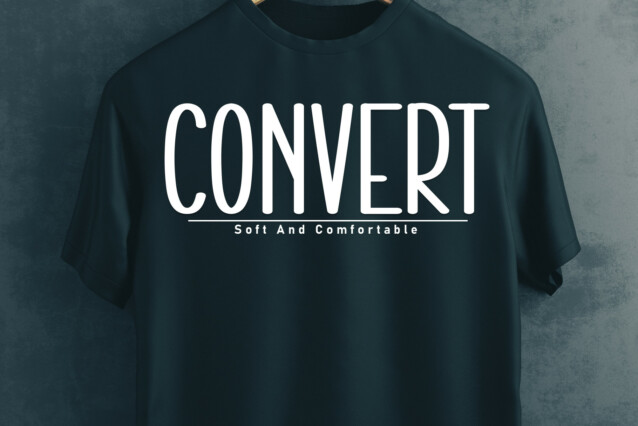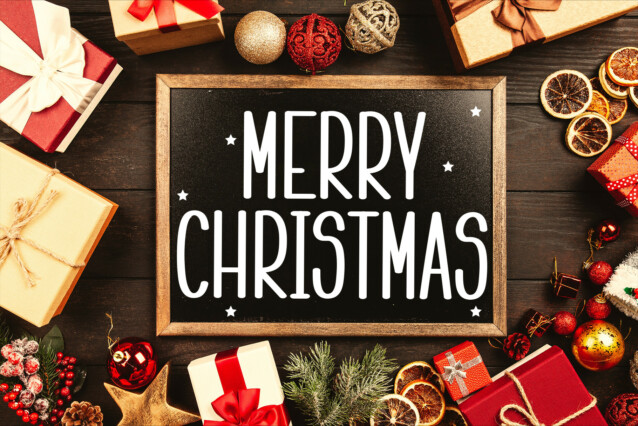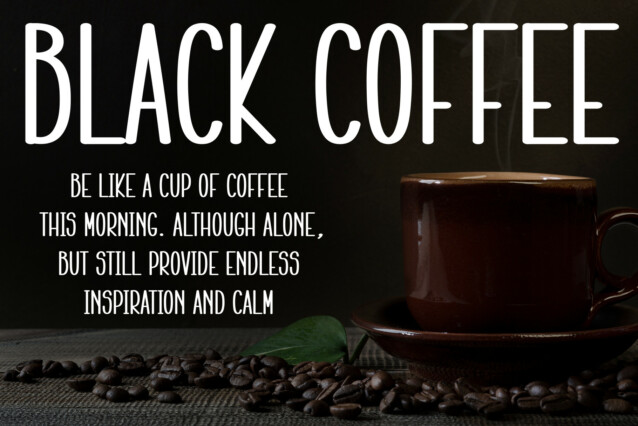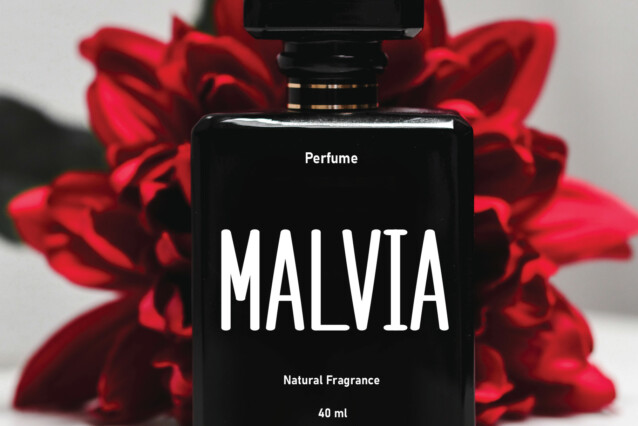
Mellow Night Display Font
Mellow Night Display Font is a cute and simple font that you can use for all chalkboard quotes or teaching material! Its authentic look will add a personal and realistic feel to your designs.